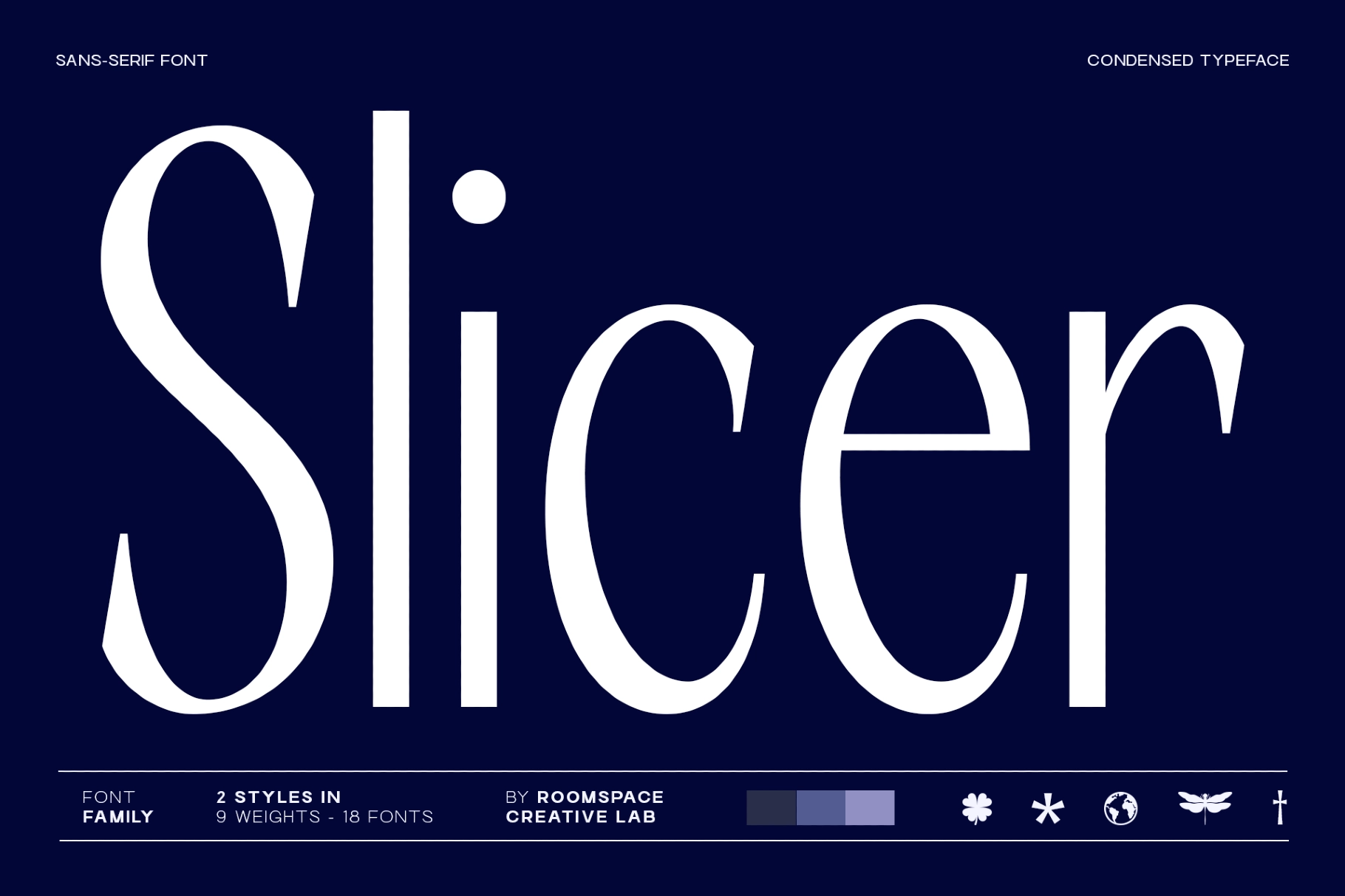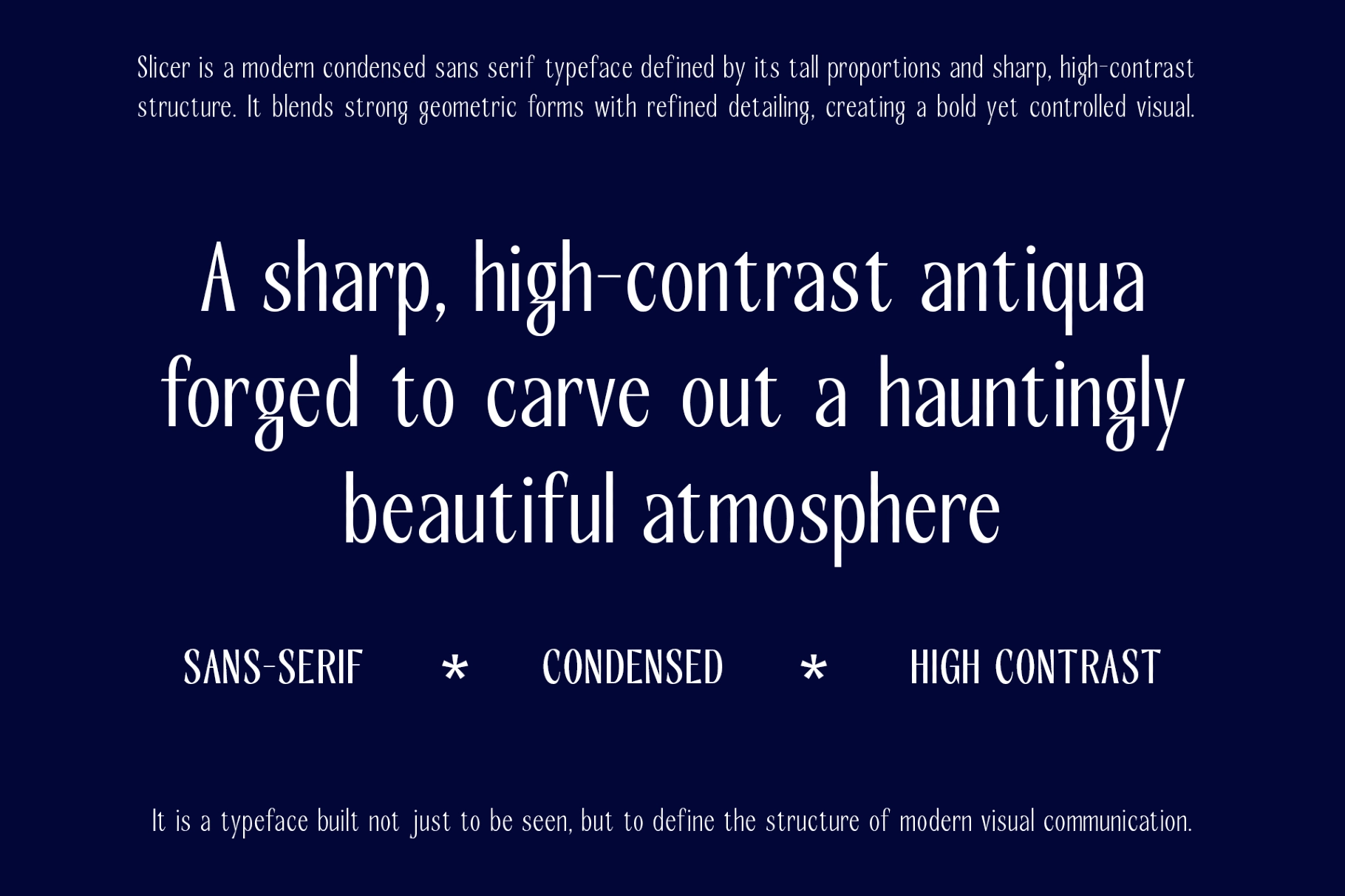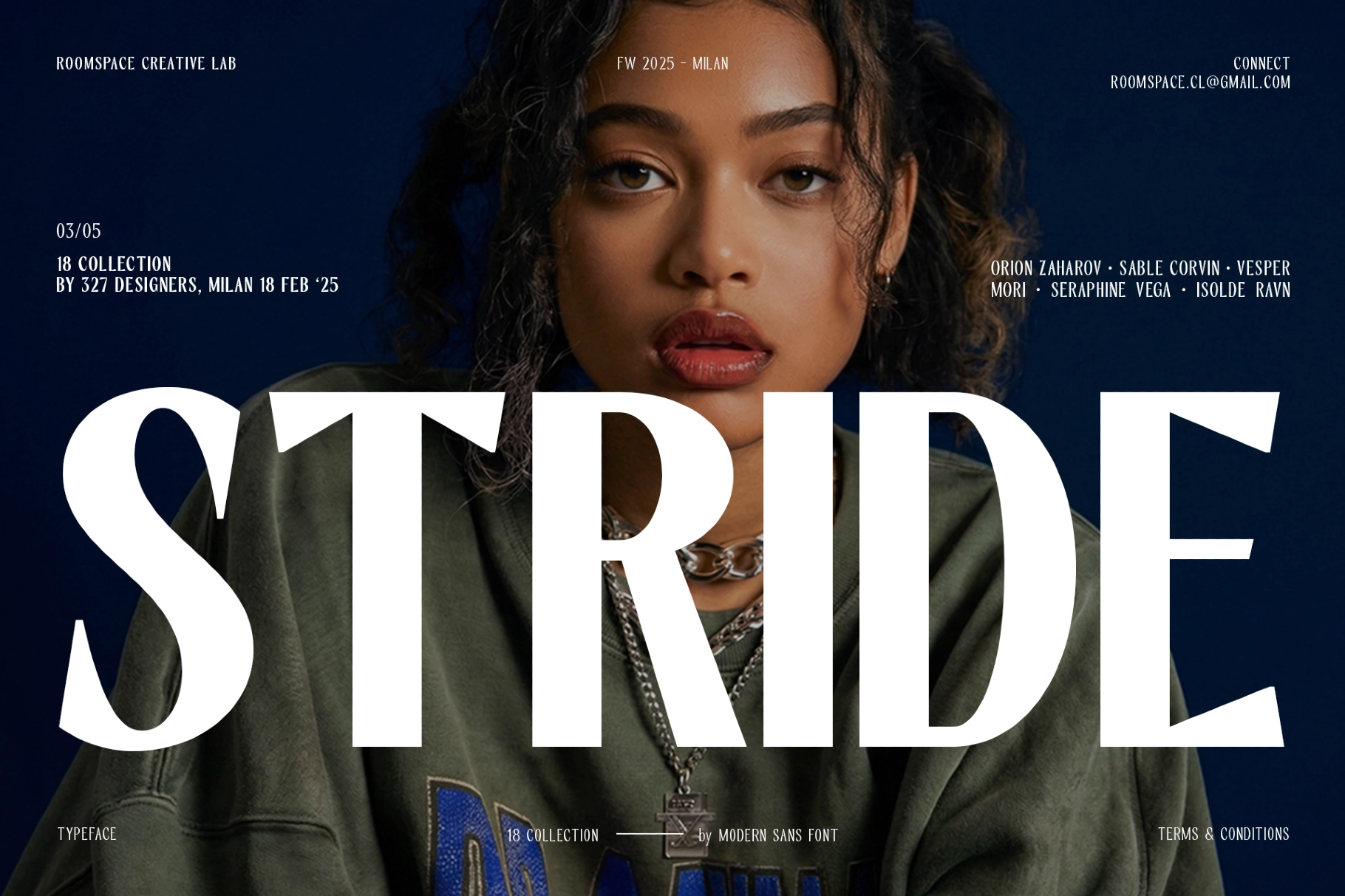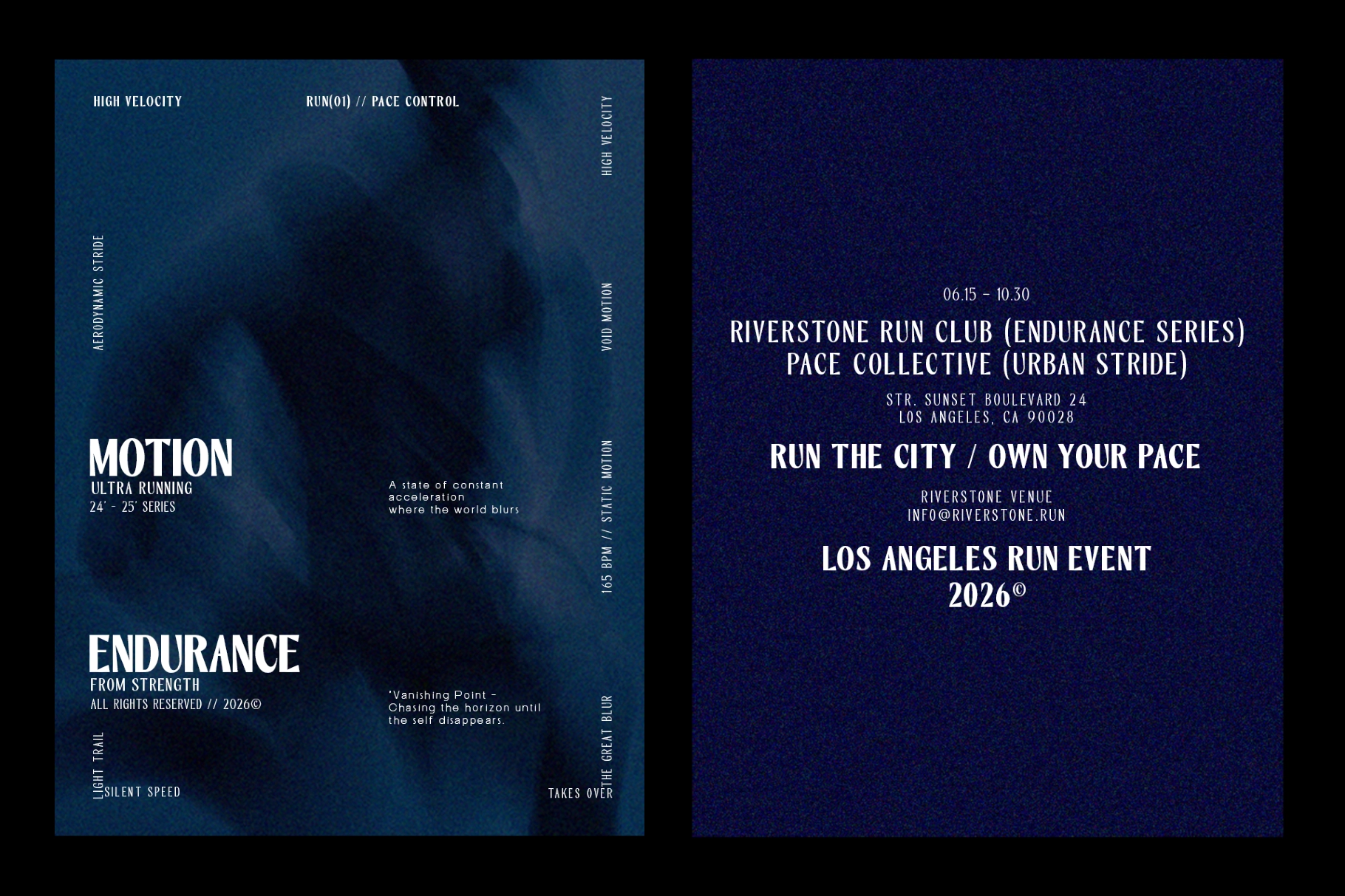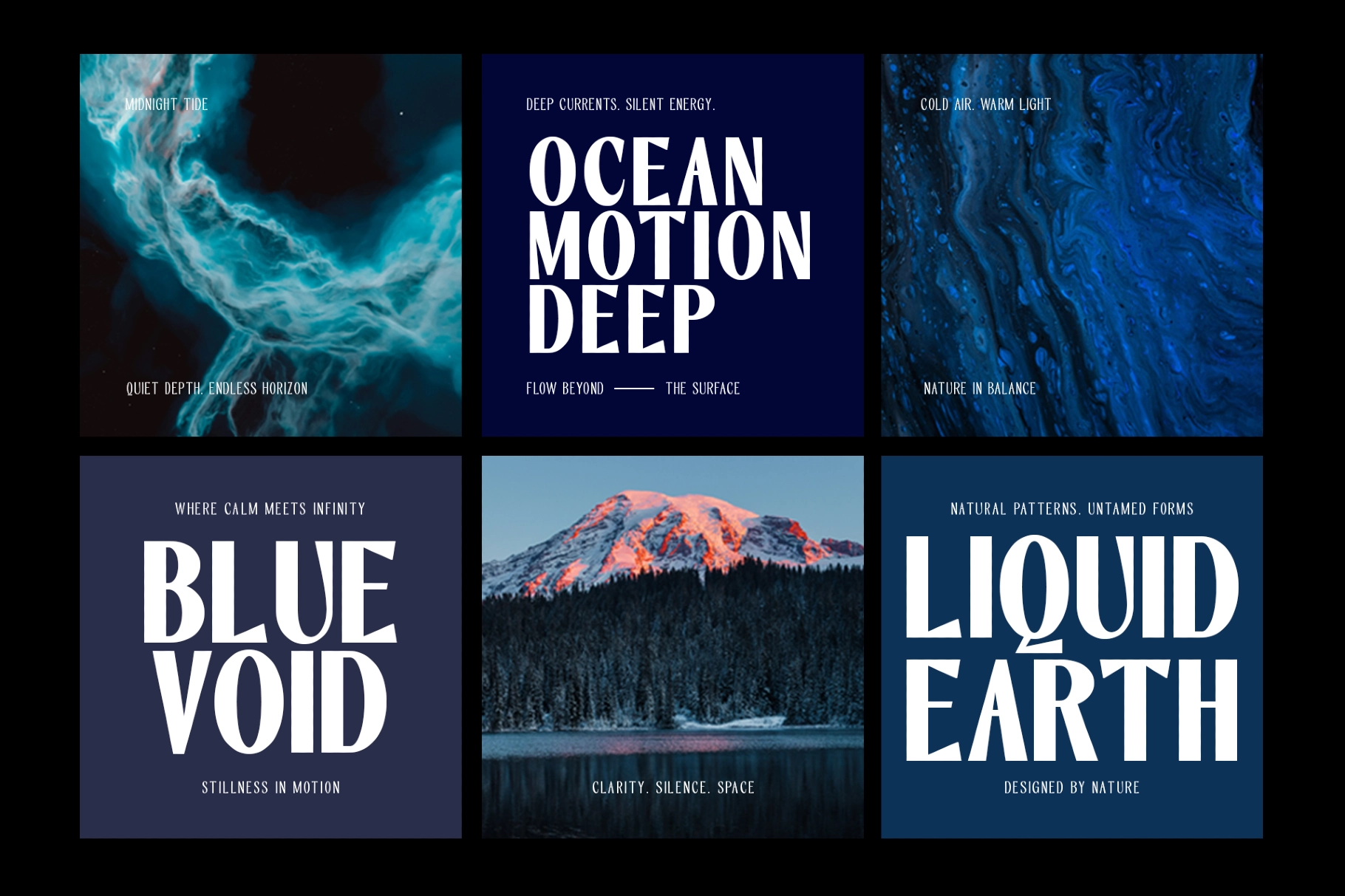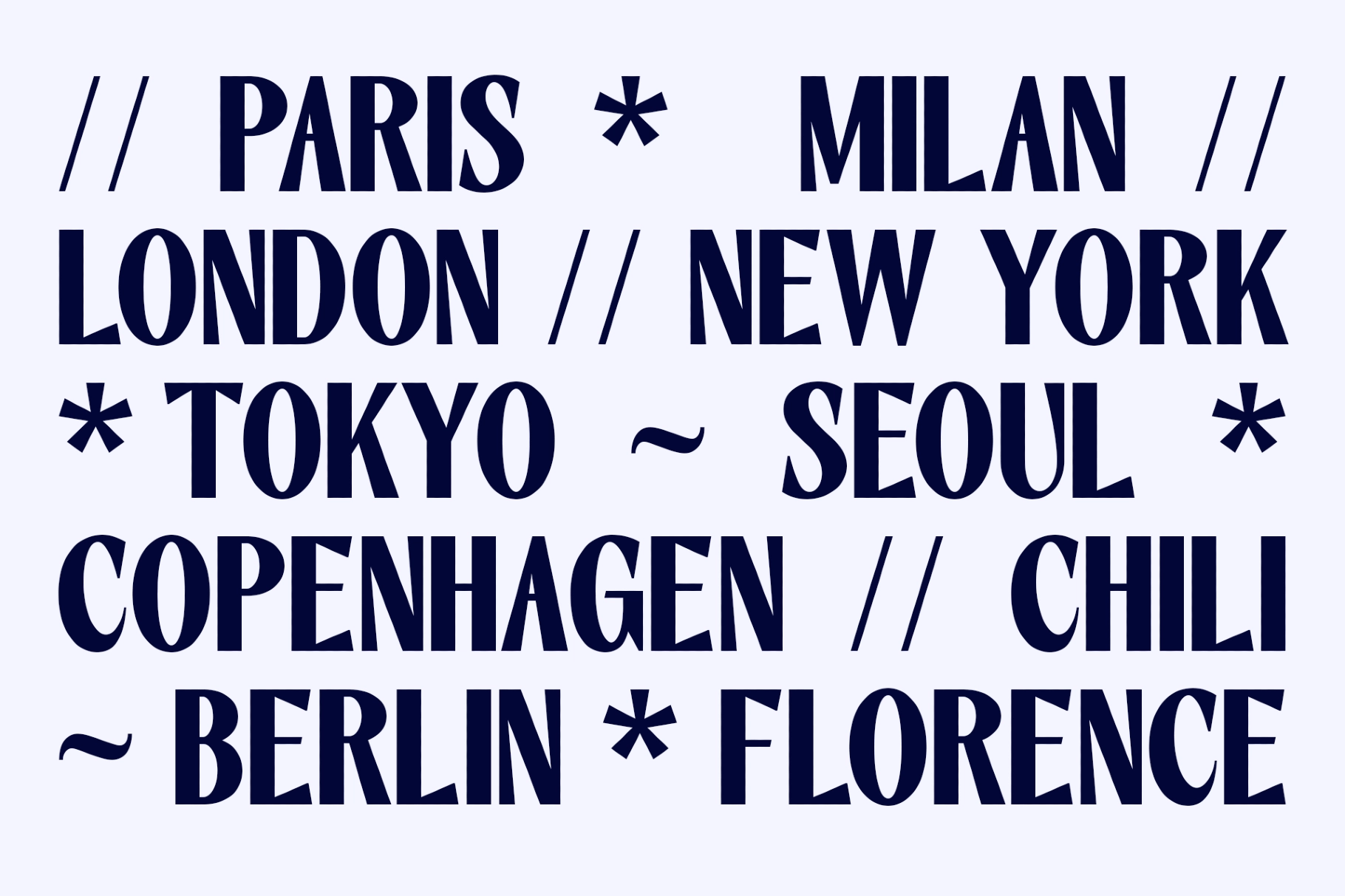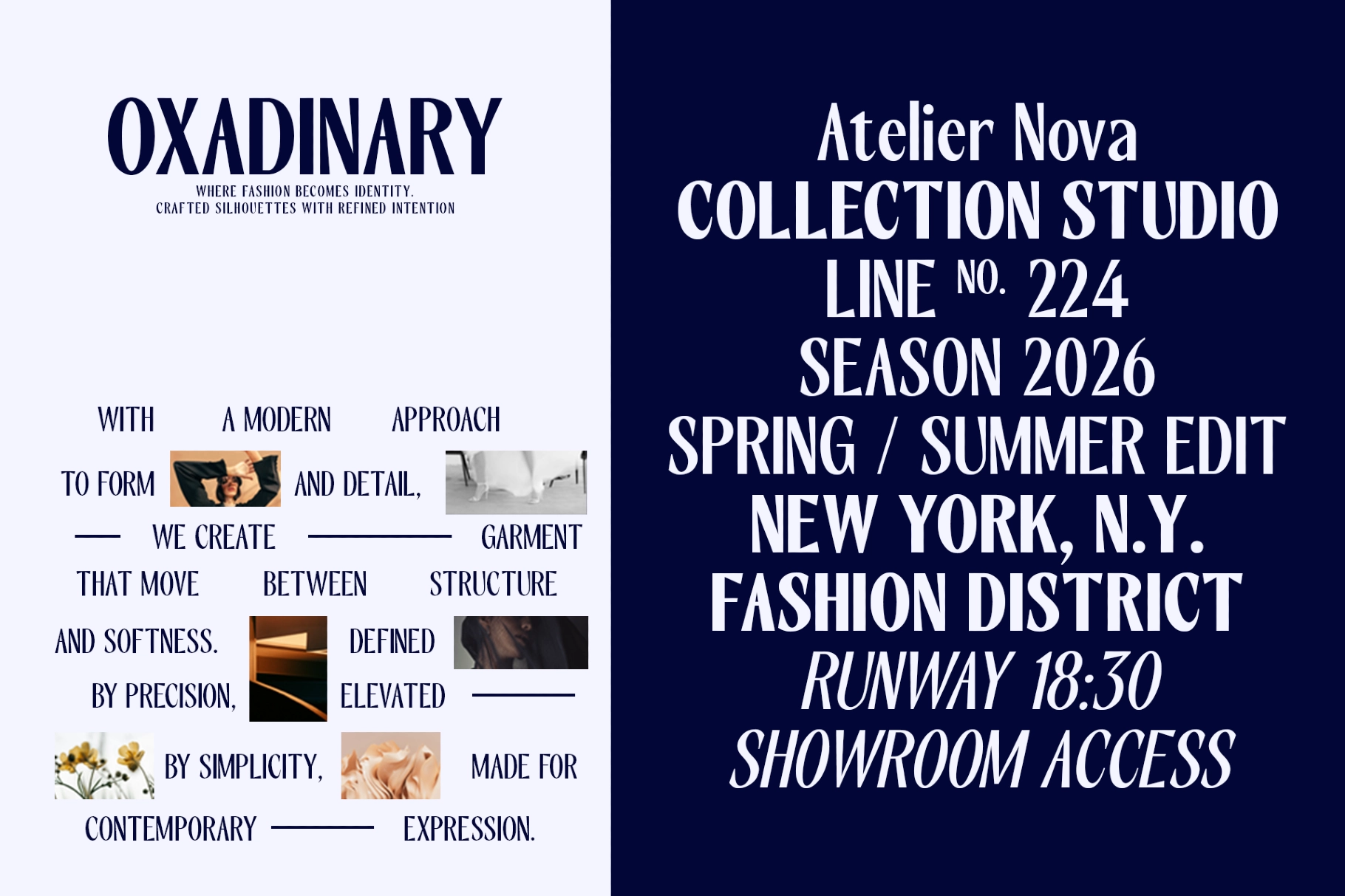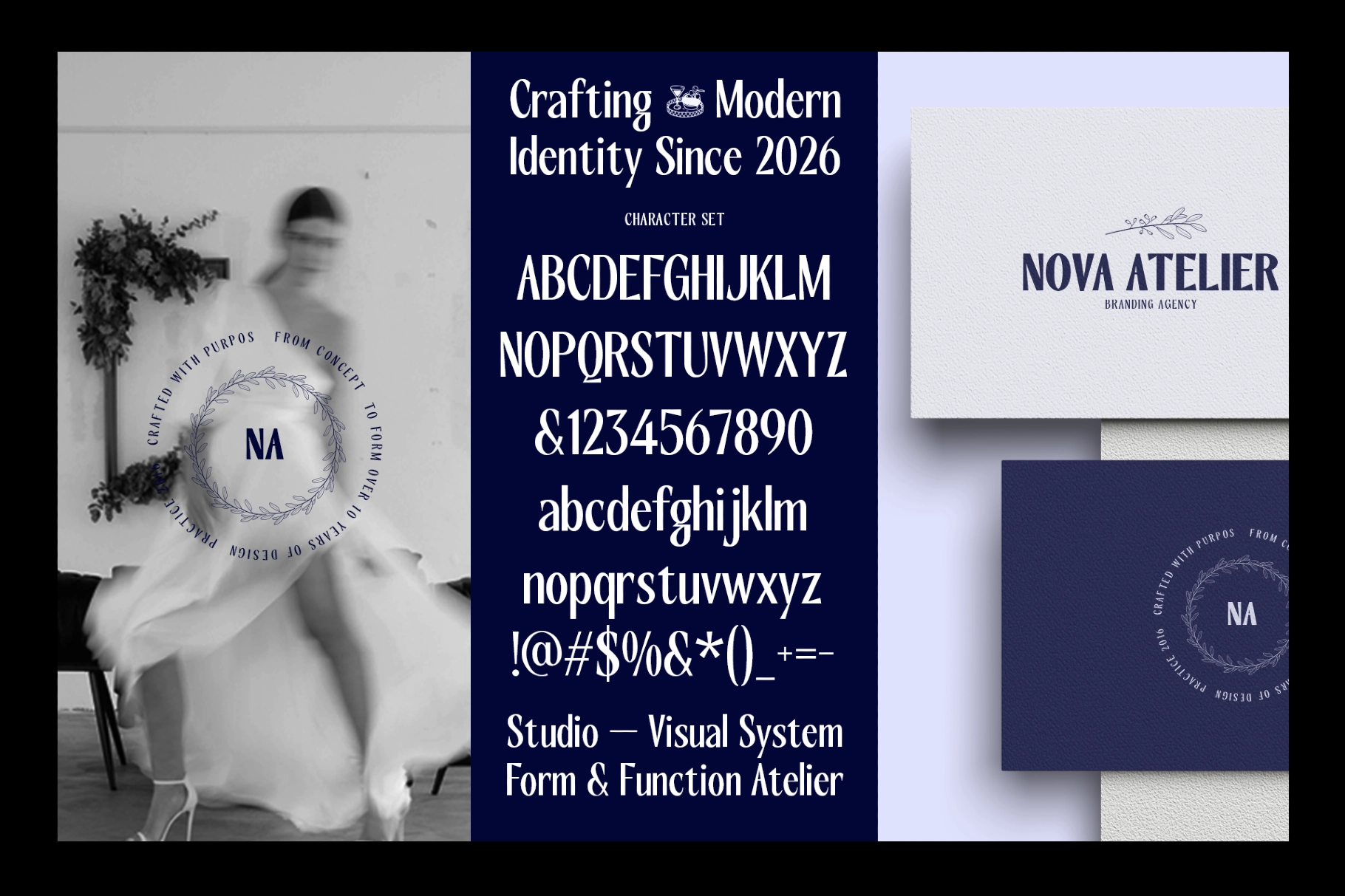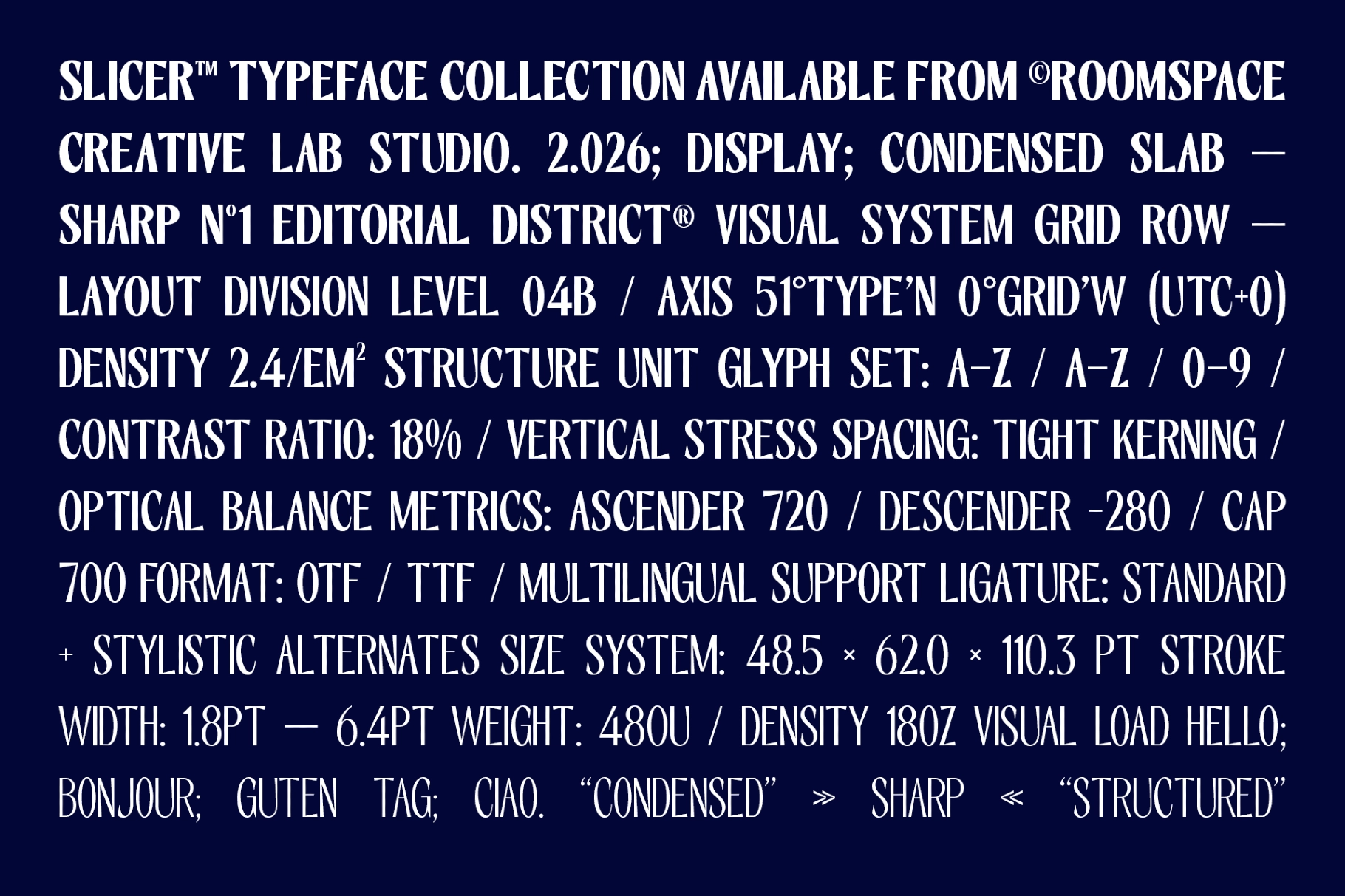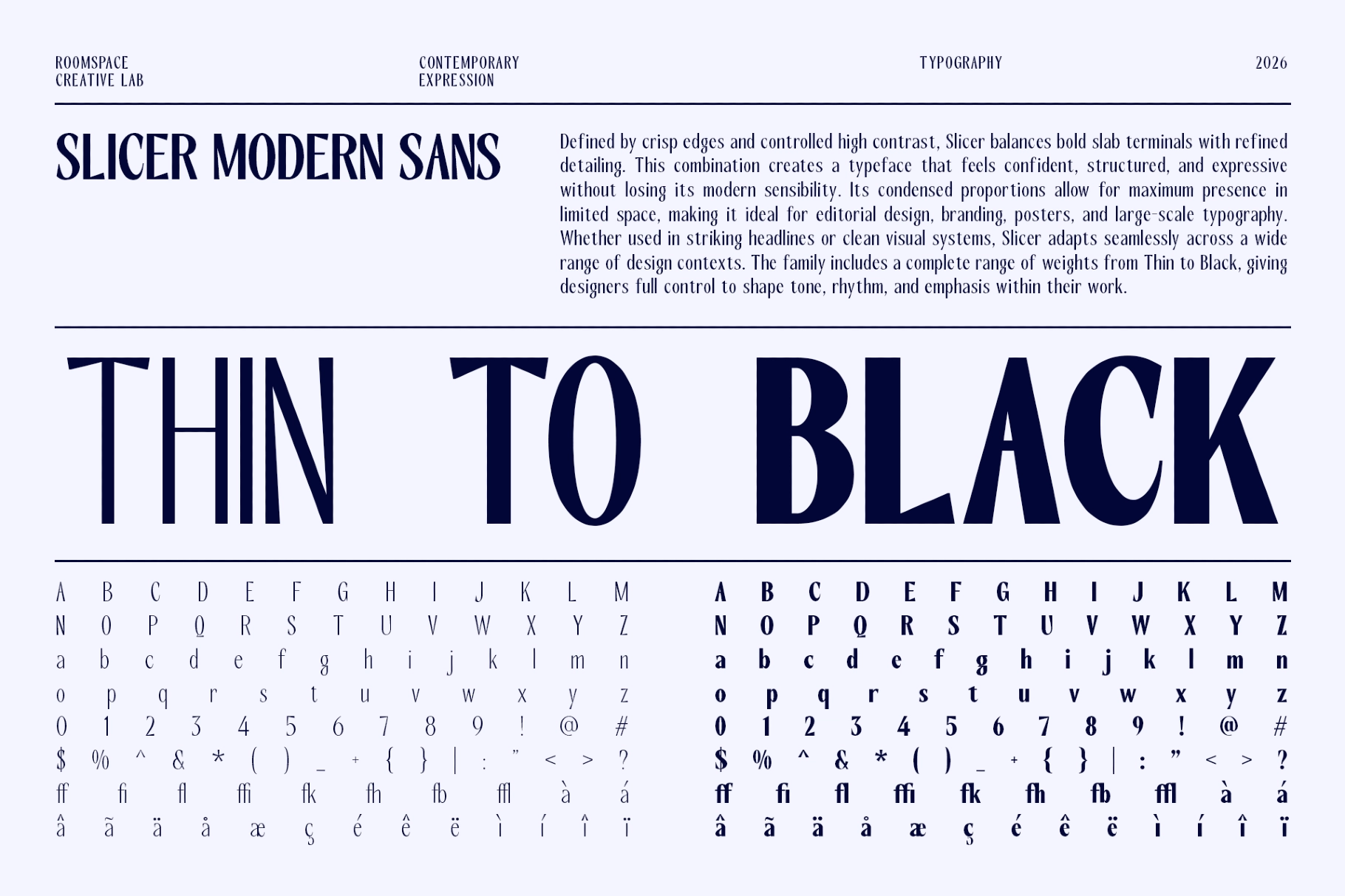
Slicer – Condensed Sans Serif Font Family
This condensed sans serif family has narrow proportions, sharp contrast, and a structured vertical rhythm made for bold editorial work. Its crisp cuts and tight spacing give headlines a commanding look, while the broad weight range keeps the system practical for branding, posters, layouts, and identity design.
Use Slicer for fashion campaigns, editorial spreads, studio branding, poster systems, lookbooks, packaging, event graphics, magazine titles, website headers, signage, visual identities, social media campaigns, and more. The family is especially useful when space is tight but the typography still needs to arrive first, take the room, and sign the guestbook.
- 2 Styles; Regular, Italic
- 9 Weights: Thin to Black